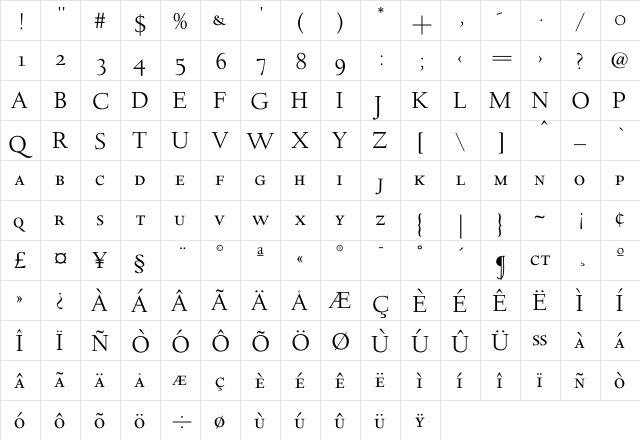
Deepdene HSC
Design Context for Deepdene Typeface
Deepdene takes a measured approach to typography — its balanced proportions and neutral character make it a reliable workhorse for both digital and print work.